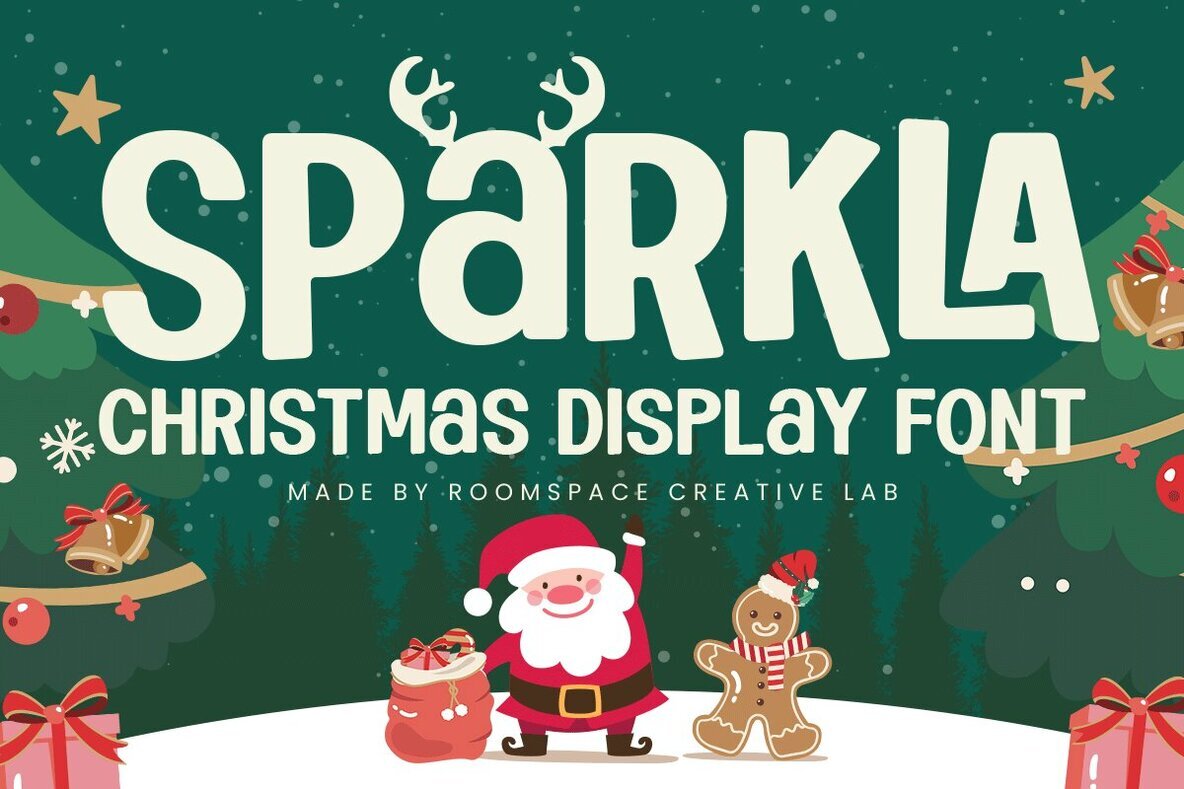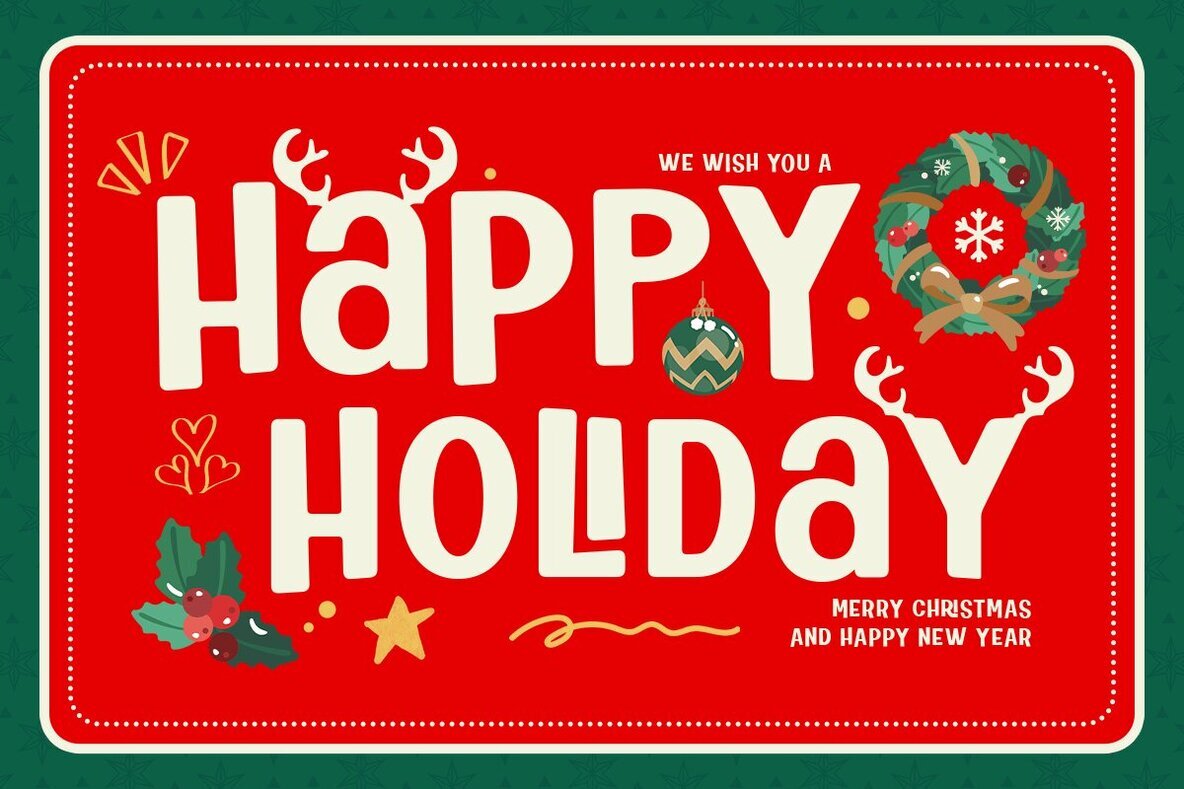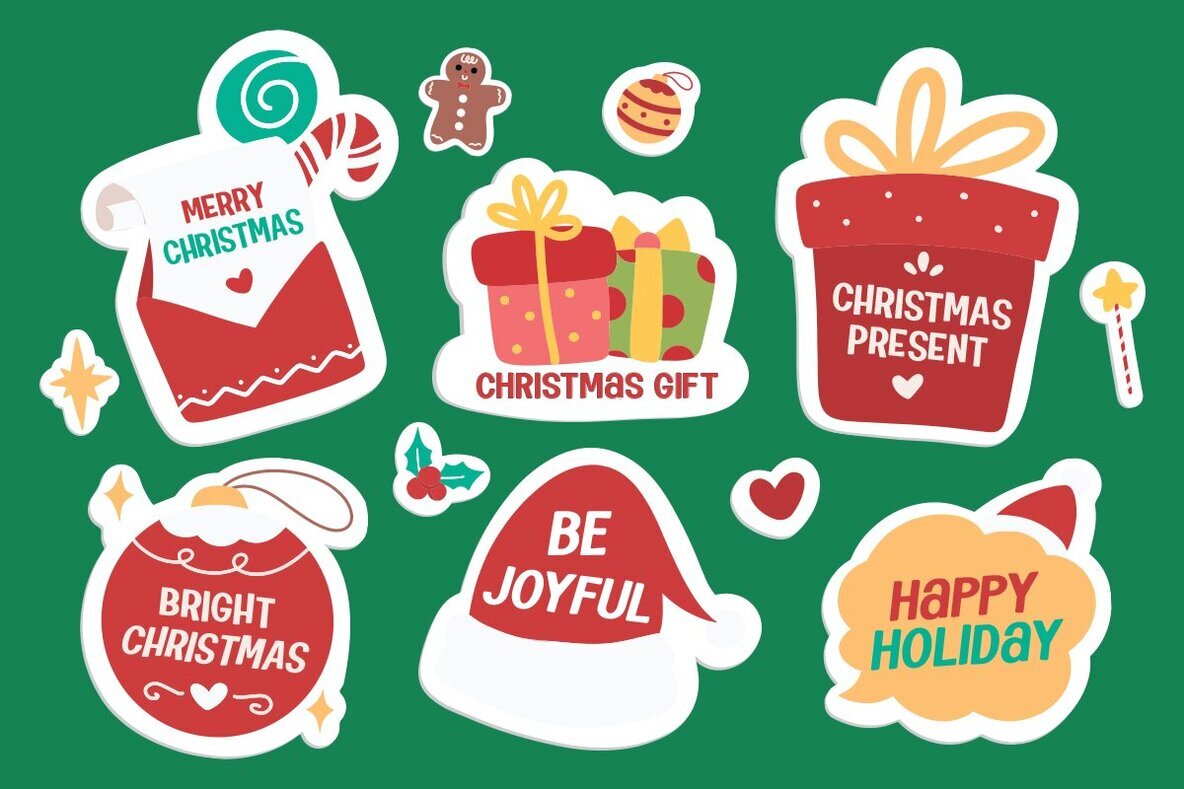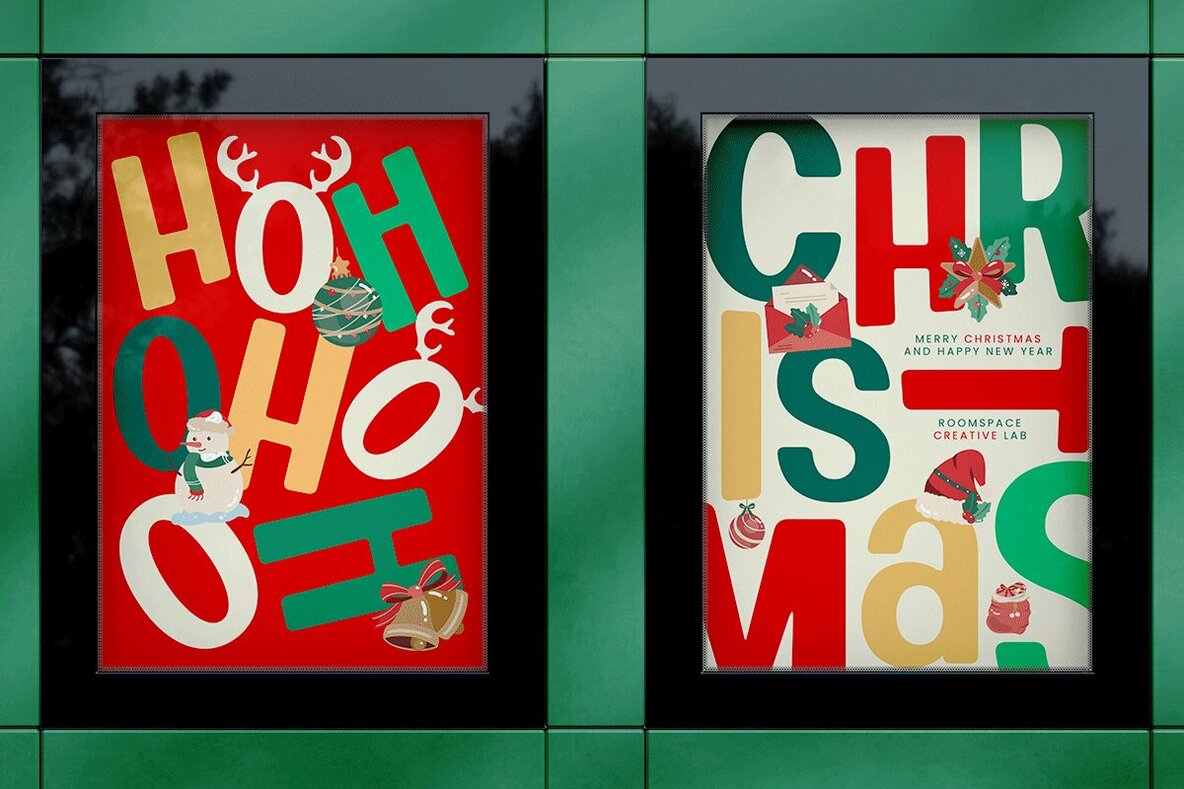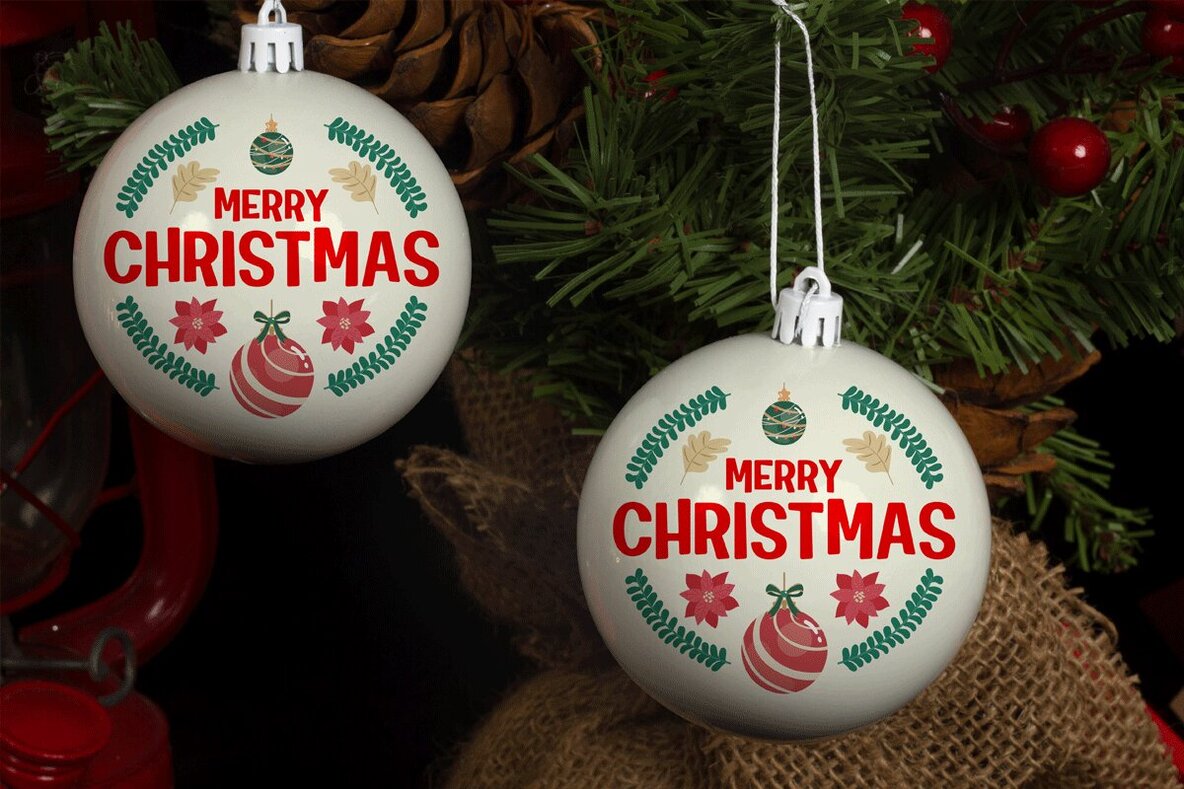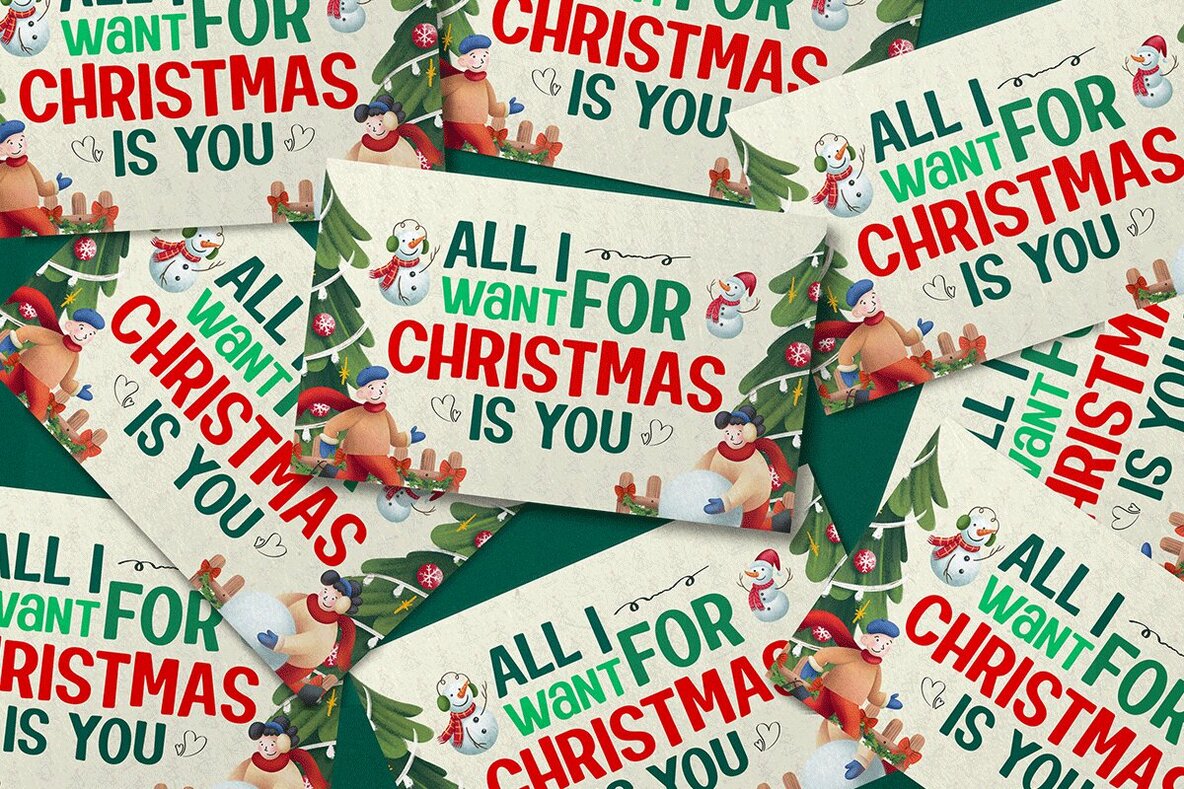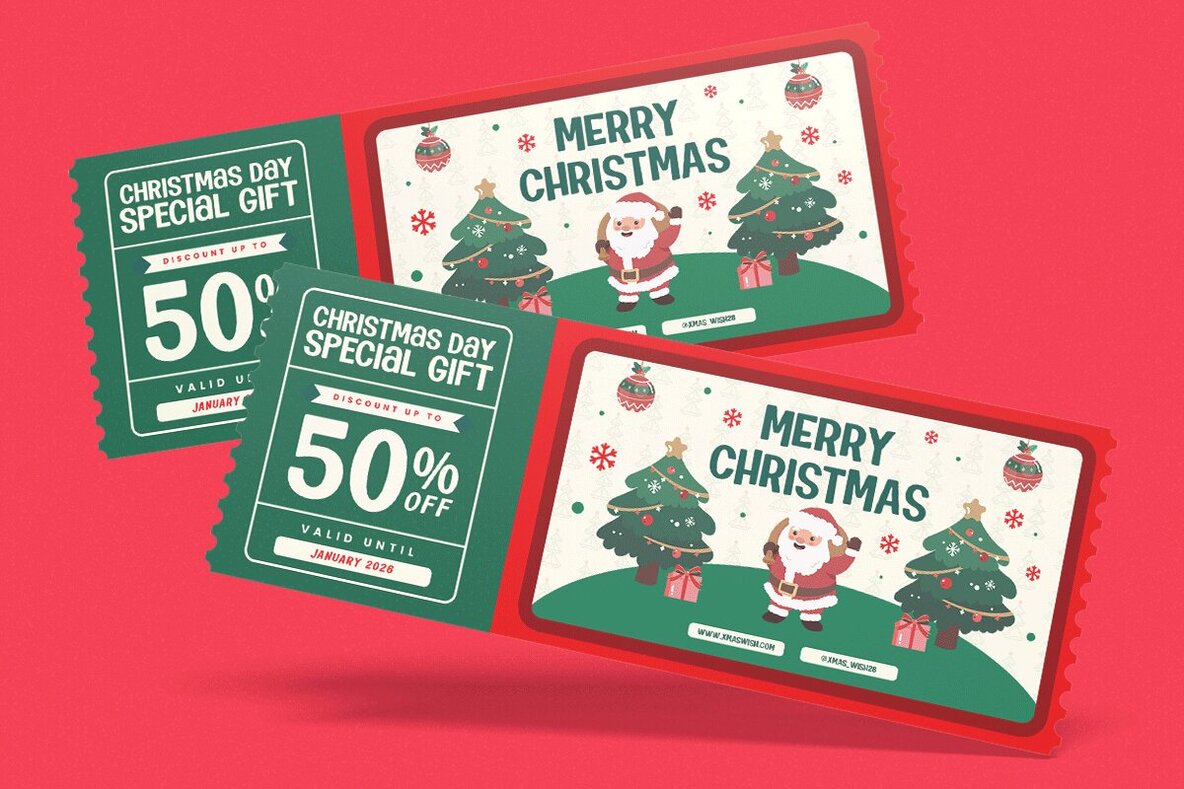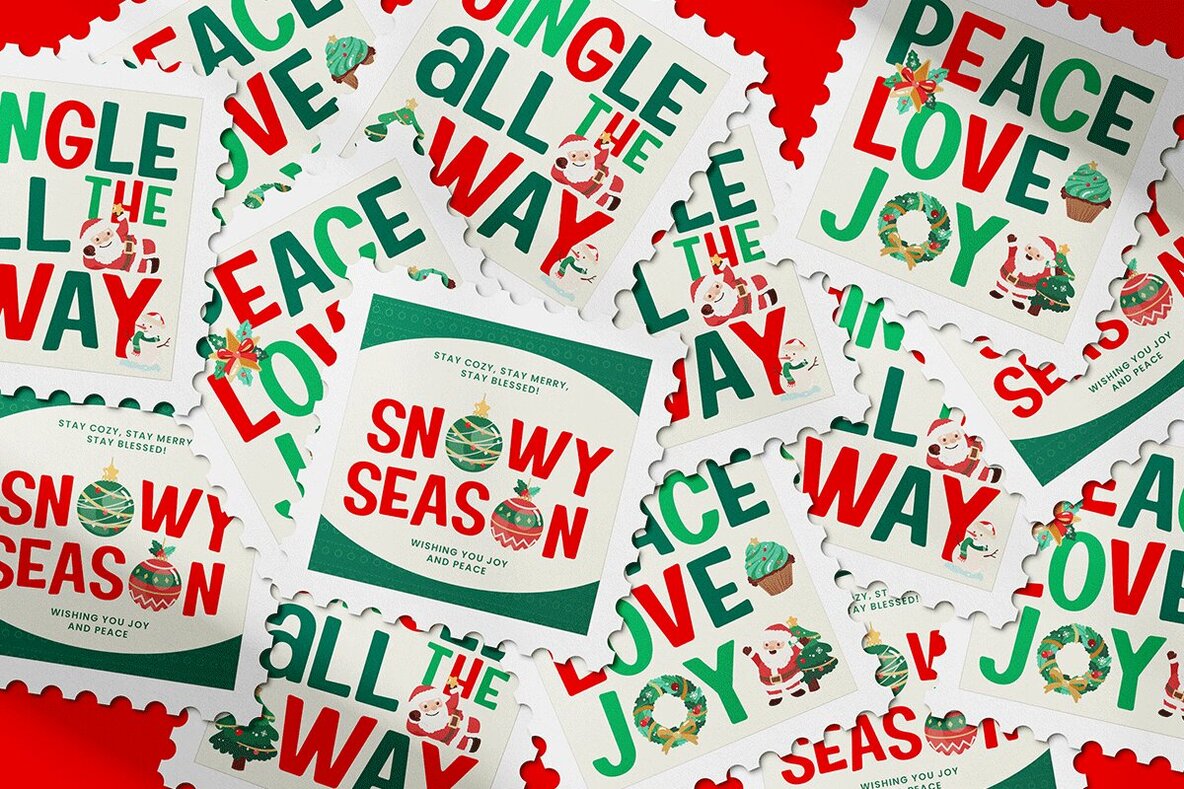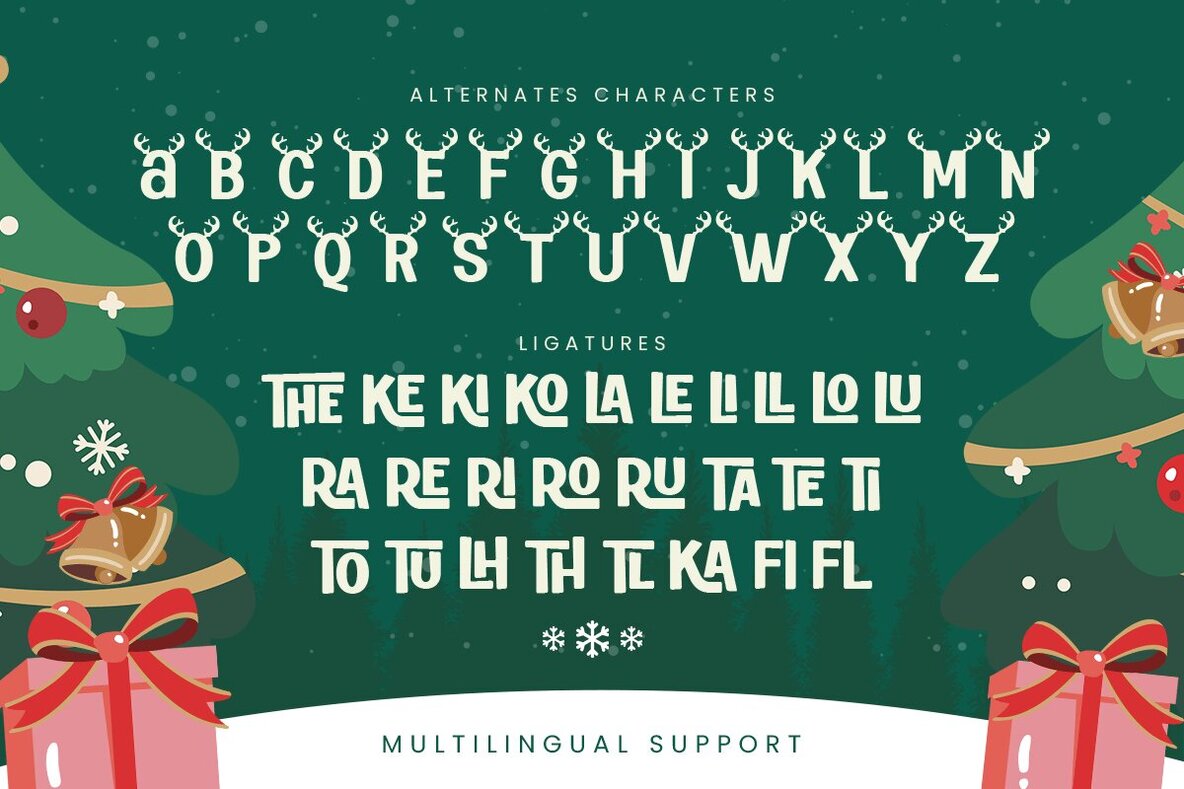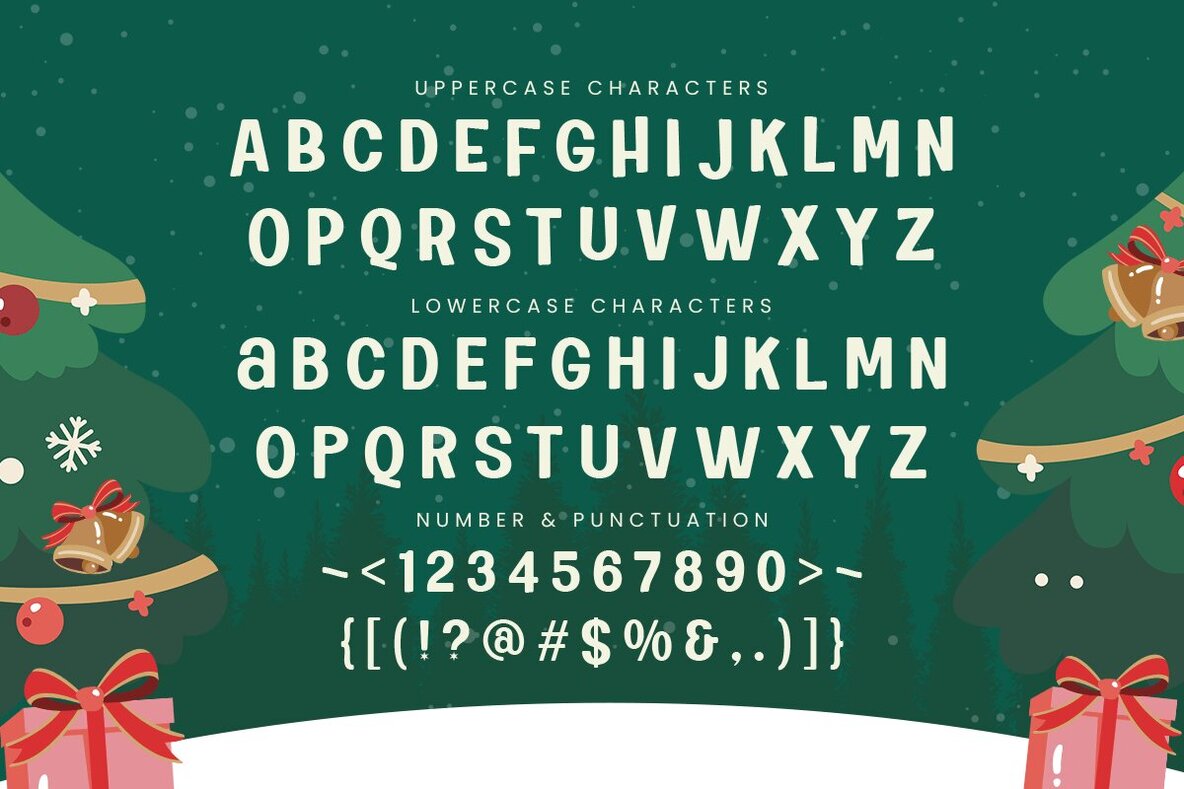
Sparkla Font
Holiday designs call for a typeface that radiates warmth. Sparkla is a display font created to bring cheerful character to seasonal branding, children's materials, and celebratory visual communication. Rounded letterforms combine with decorative holiday motifs, lending a vibrant personality suited for a range of applications, from greeting cards to retail promotions. This font maintains strong readability through bold, balanced shapes. Its playful style makes it an attractive choice for those seeking to infuse materials with a sense of joy and festivity. Suitable for both print and digital formats, Sparkla extends its use beyond traditional holiday collateral into packaging, posters, and materials designed for young audiences.Sparkla: Playful Display Typeface for Festive Projects